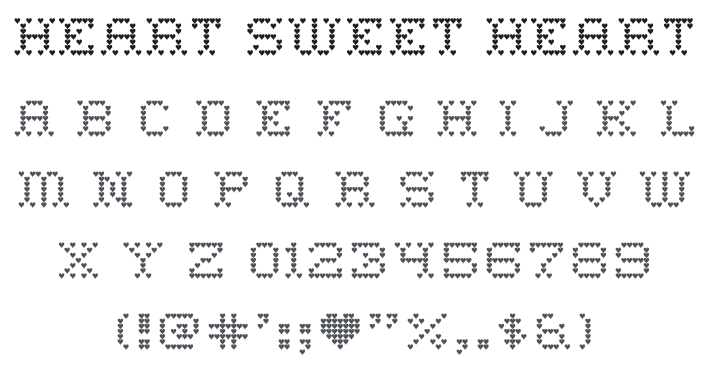
Heart Sweet Heart Font
About Heart Sweet Heart
Heart Sweet Heart is a rustic decorative display typeface overflowing with heart motifs woven into the letterforms — creating a cozy, warm atmosphere that's equal parts handcrafted charm and Valentine's Day sweetness. Its folksy character gives it a homemade, lovingly hand-carved quality. Perfect for Valentine's cards, romantic branding, wedding stationery, seasonal packaging, and any design needing heartfelt warmth.